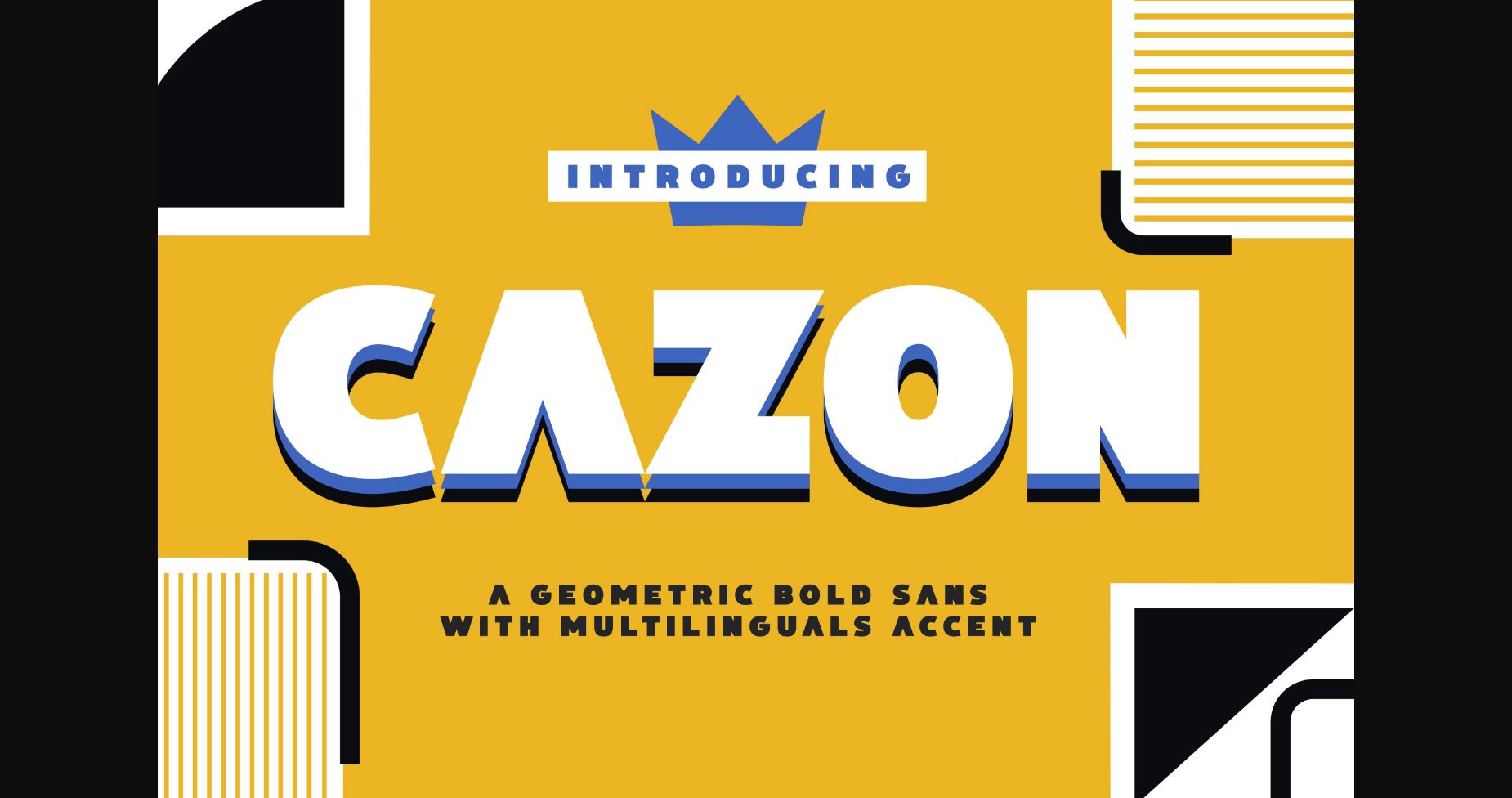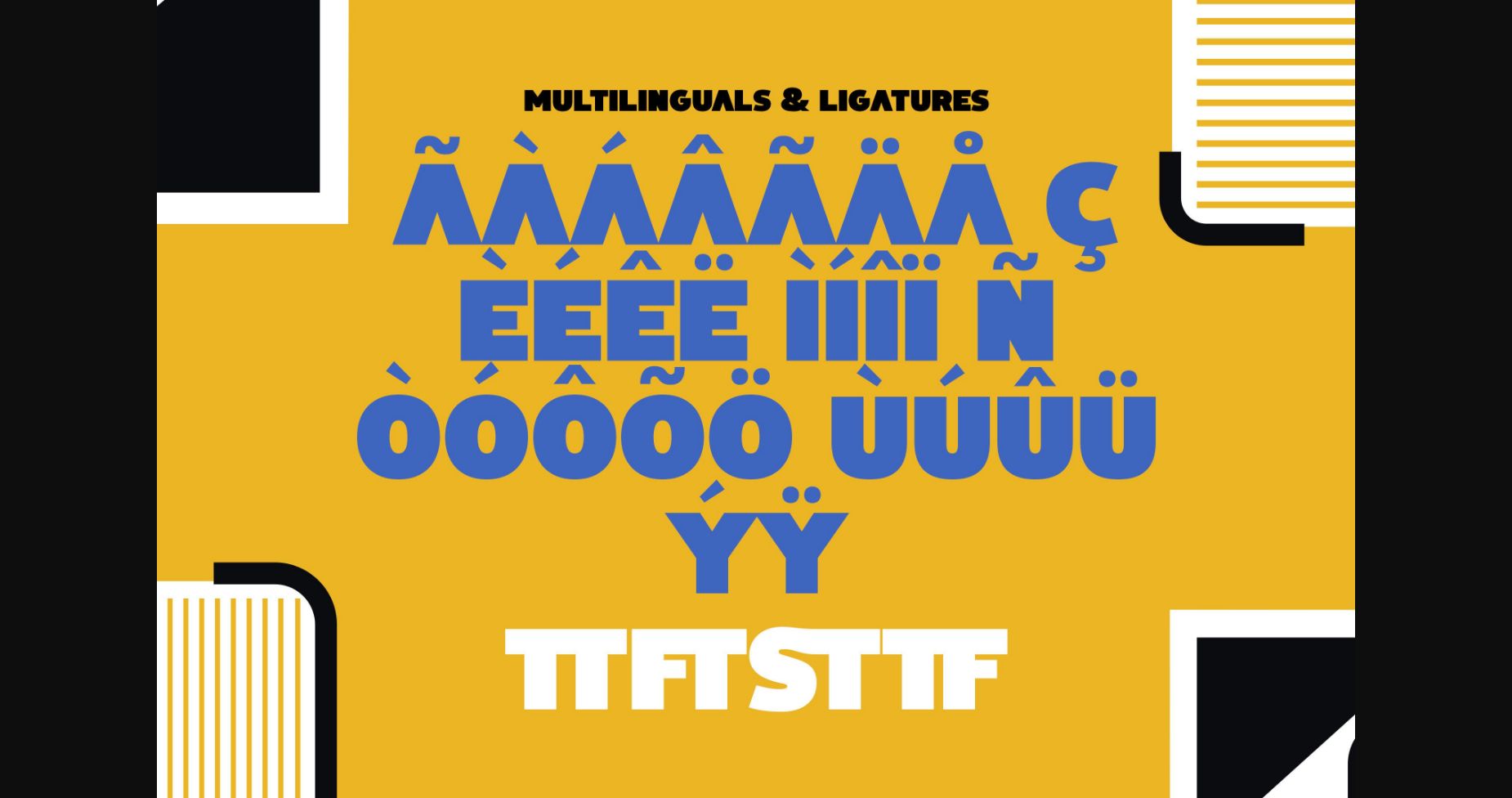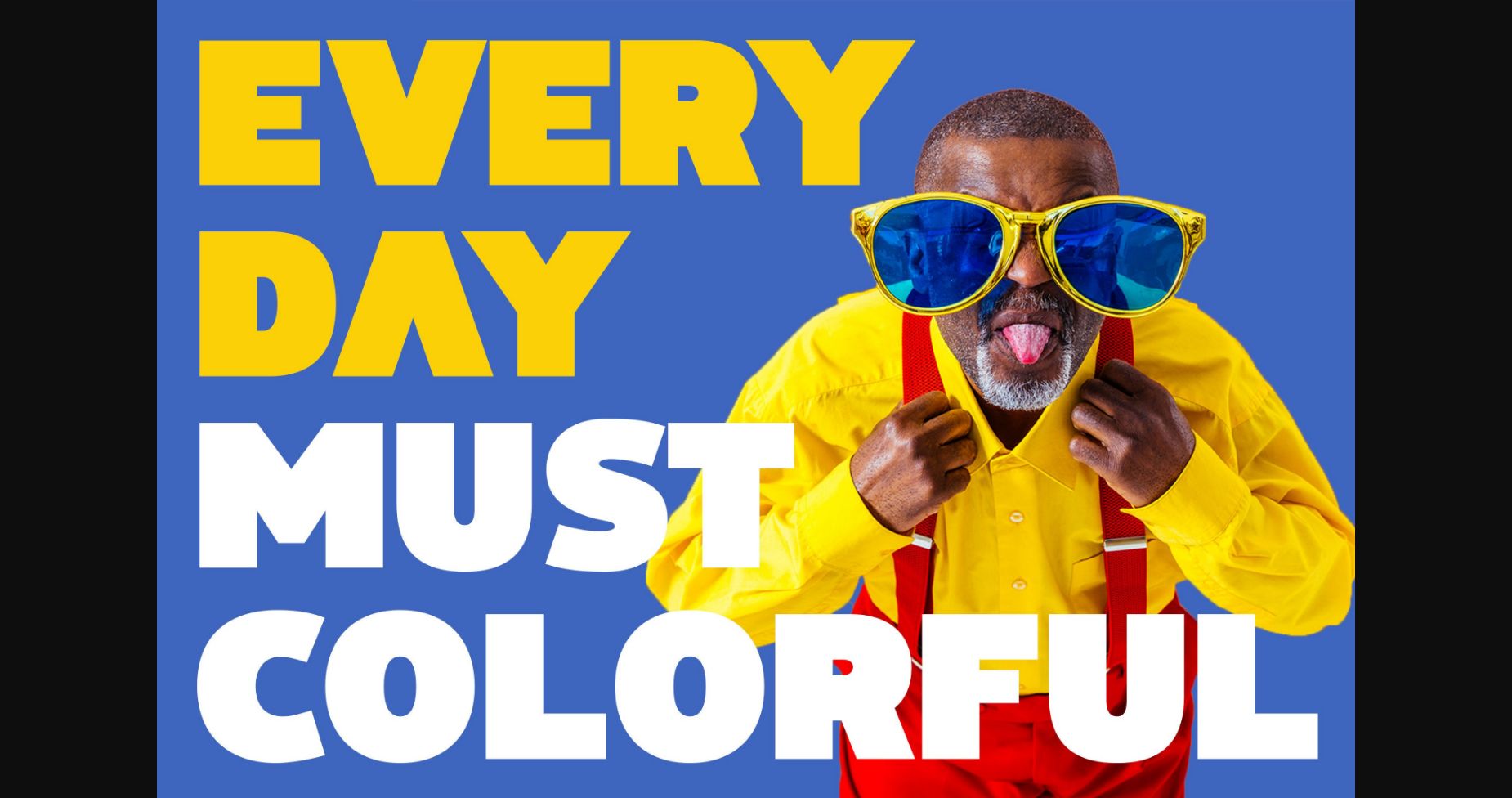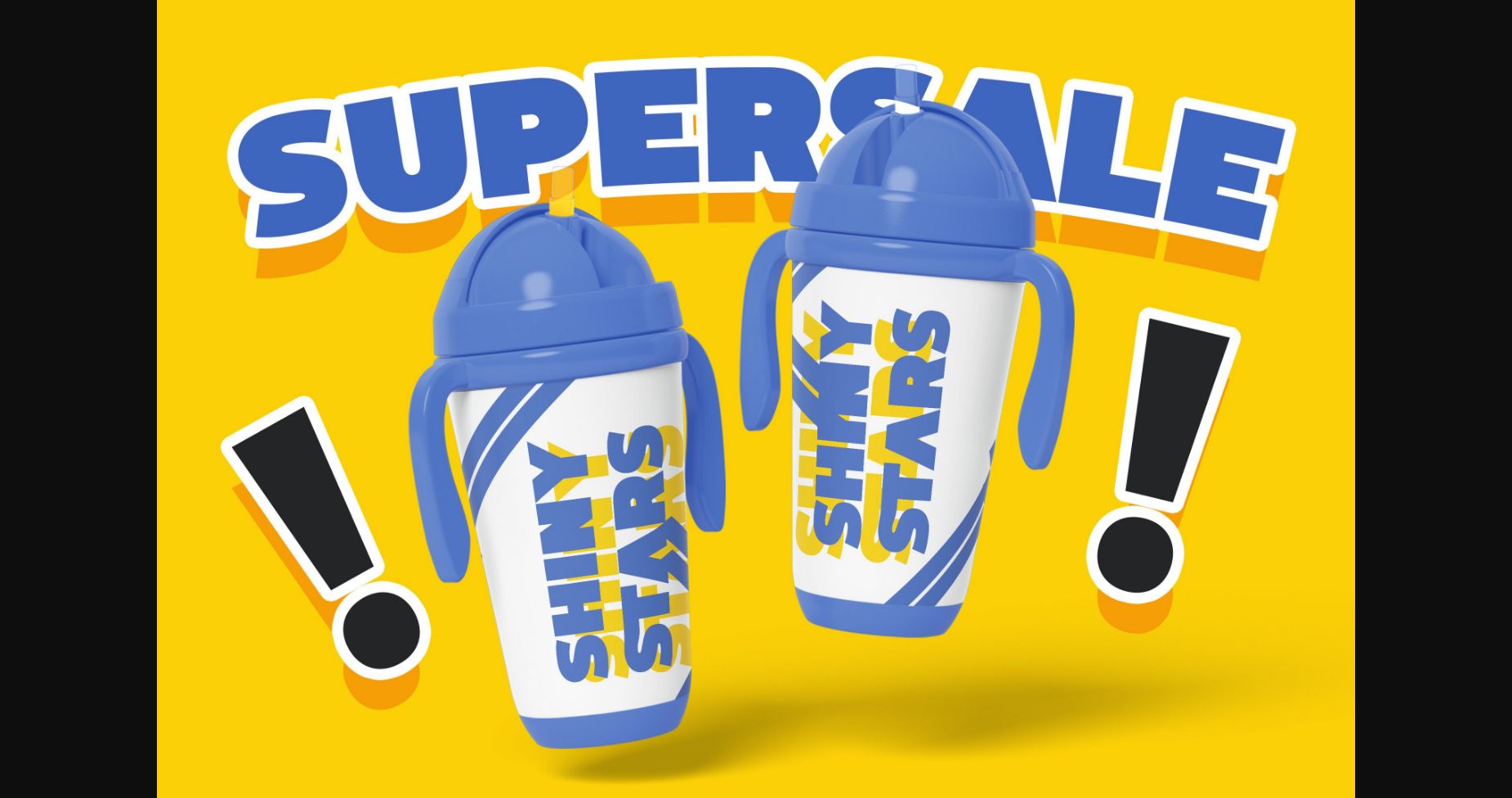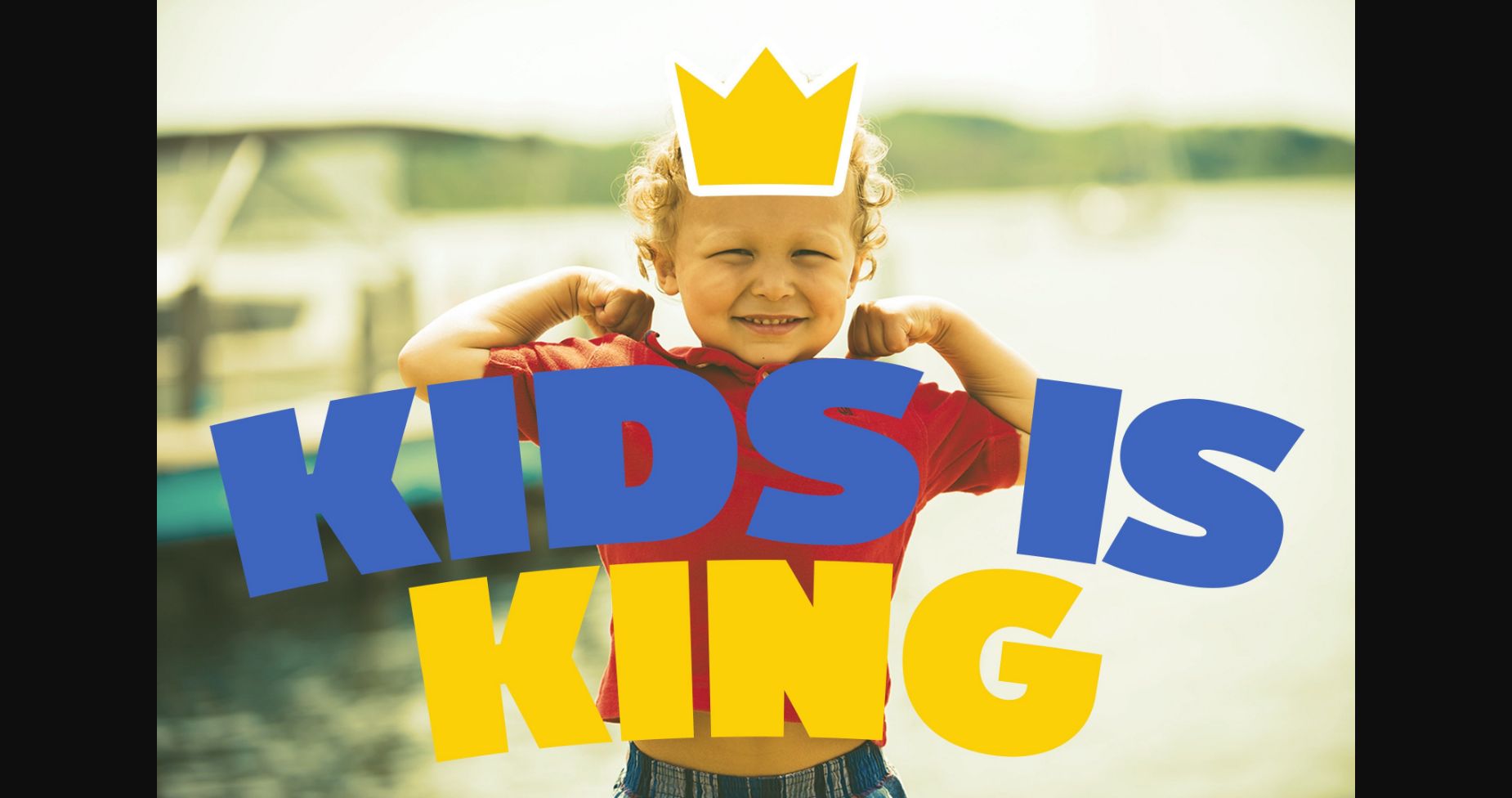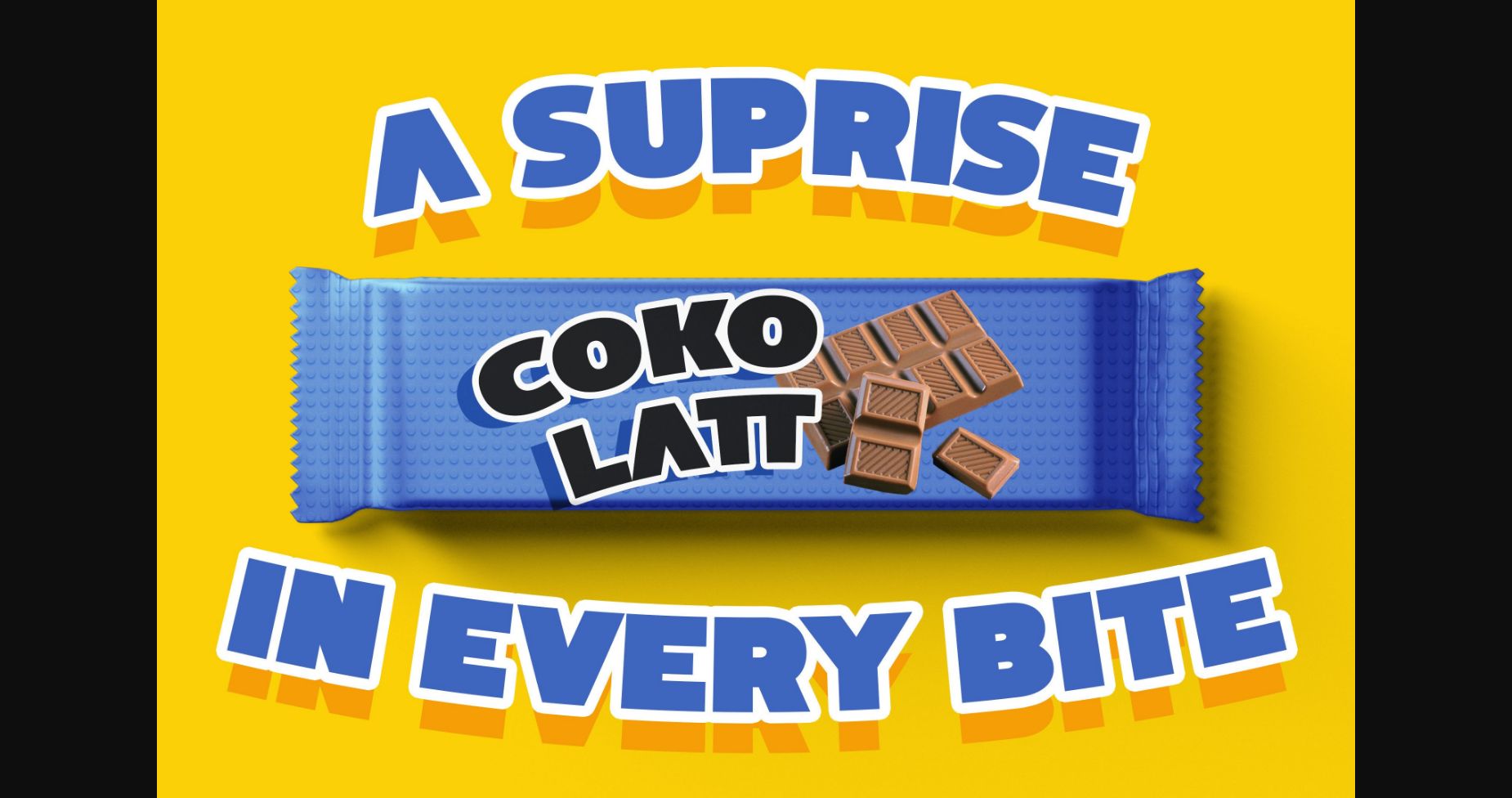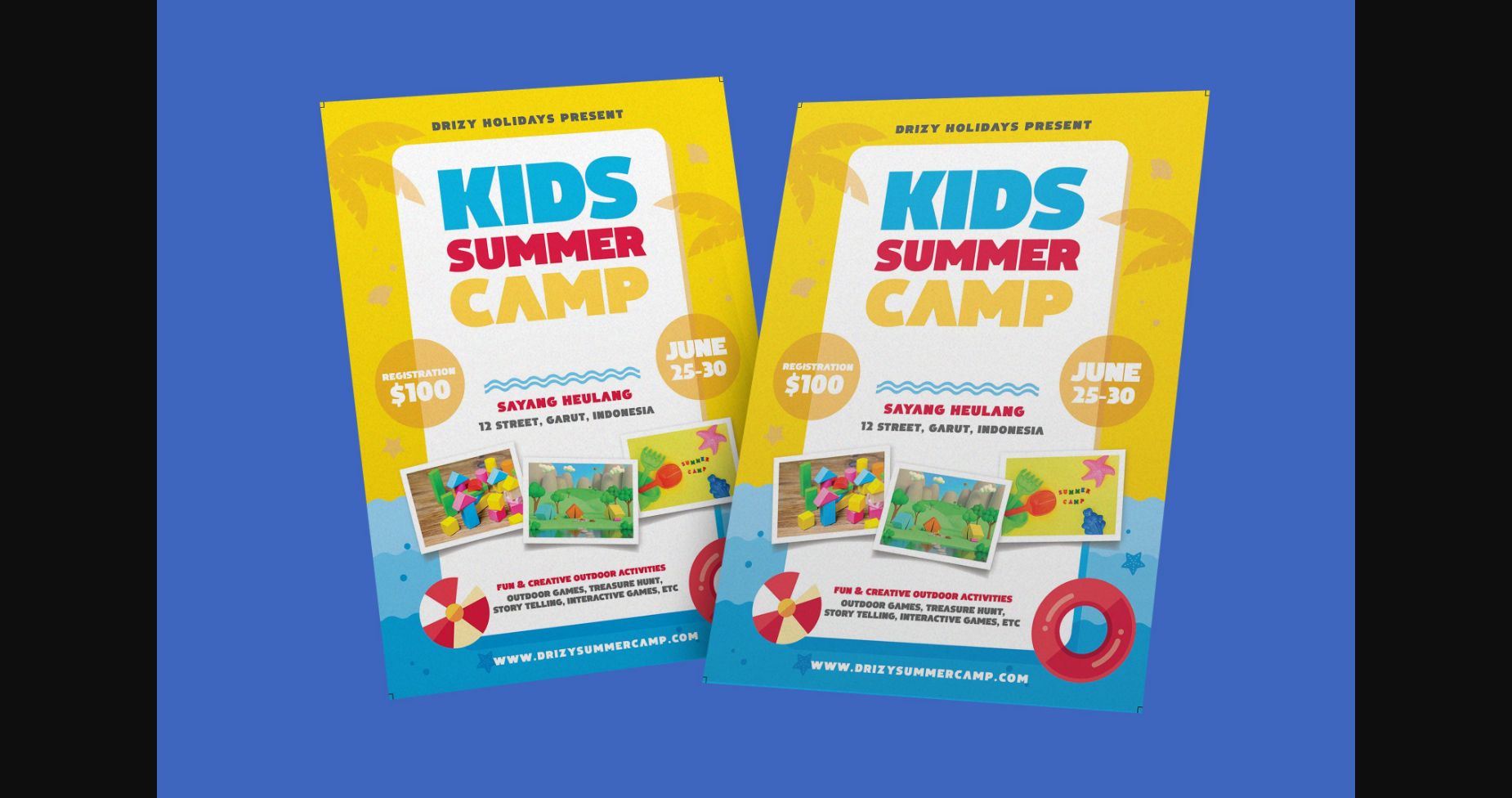
Cazon Font
About Cazon Font
Introducing Cazon! A new sans serif geometric font with multilingual accents. Cazon is great for creating eye-catching headlines and logos, applicable for any type of graphic design web, print, motion graphics, and perfect for t-shirts and other items.